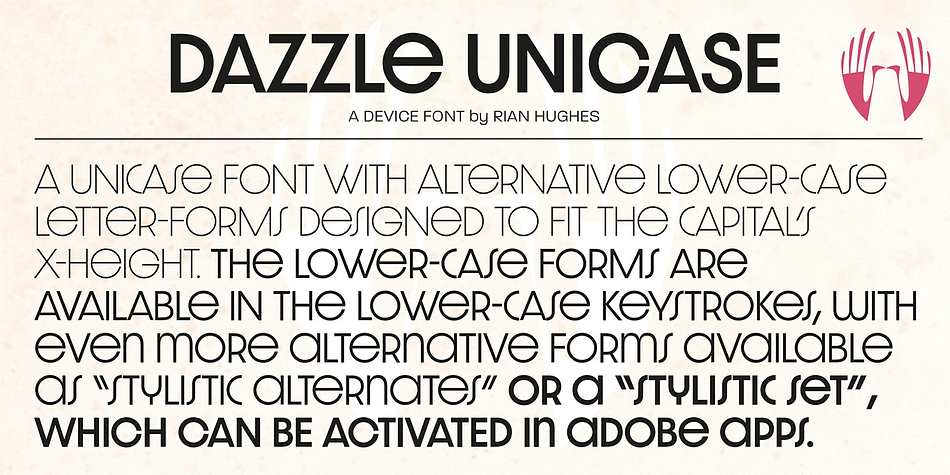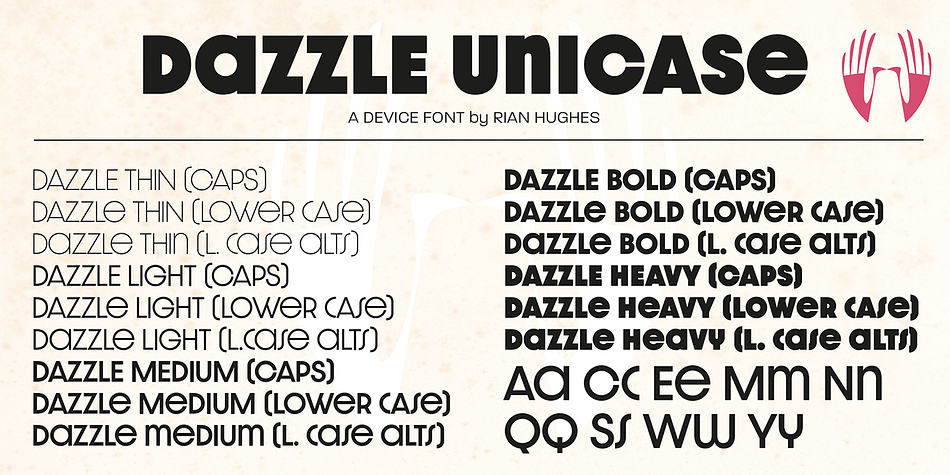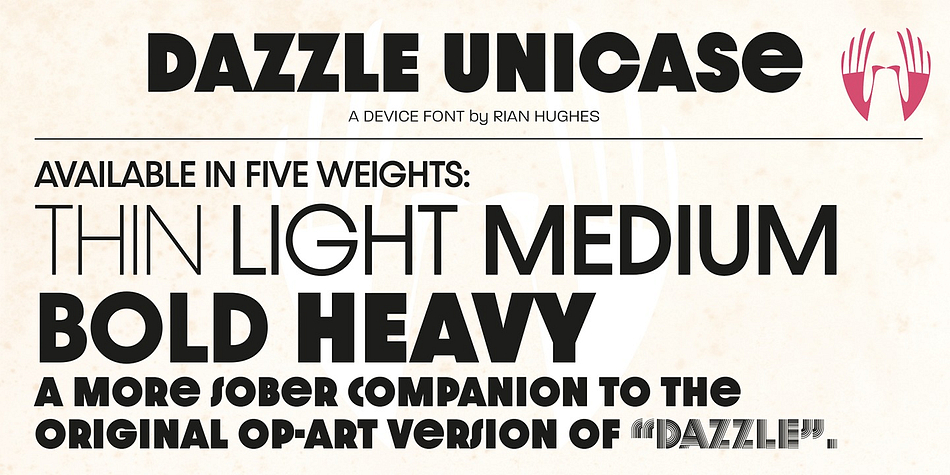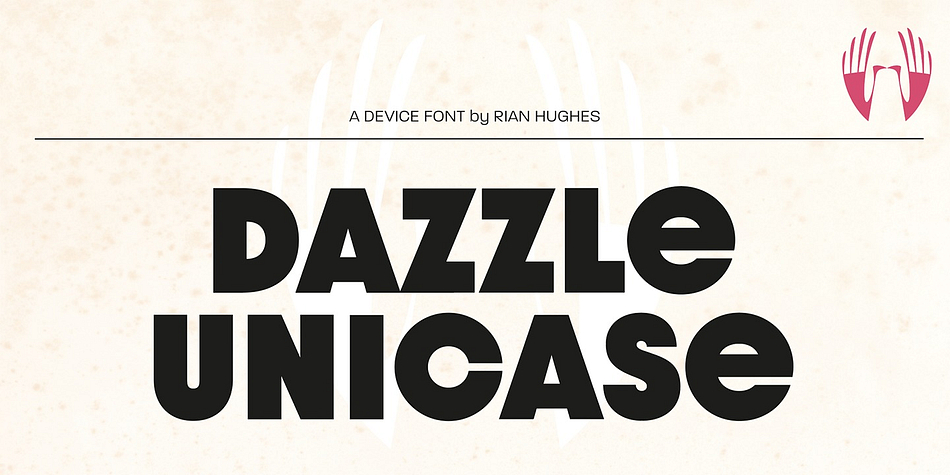
Designed by Rian Hughes, Dazzle Unicase is a display sans font family. This typeface has five styles and was published by Device.
An elegant, stylish unicase font with alternative lower-case letter-forms designed to fit the capital’s X-height. The lower-case forms are available in many of the lower-case keystrokes, with even more available as “stylistic alternates” or a “stylistic set”, which can be activated in Adobe apps. Eye-catching, sophisticated and contemporary. Available in five weights. A more sober companion to the original op-art version of “Dazzle”.